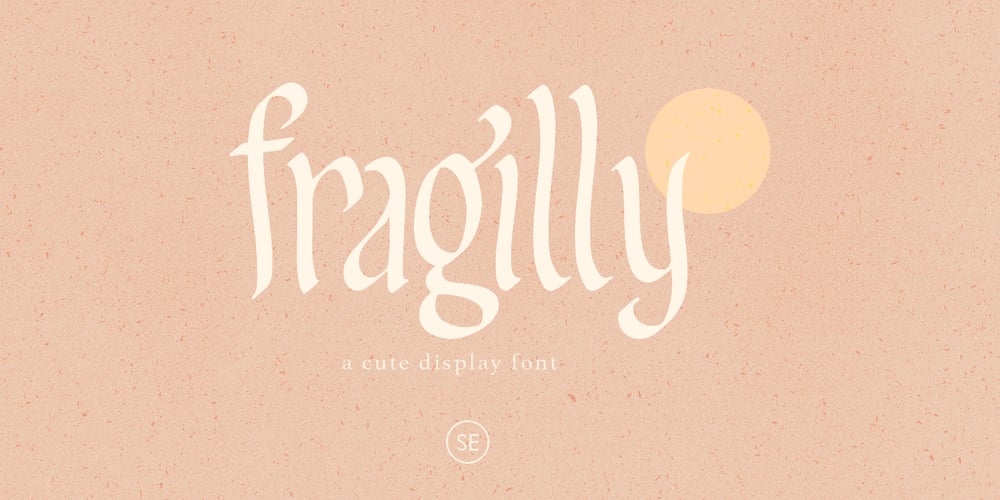
Fragilly
Fragilly font
Fragilly Font Family was designed by Sarid Ezra and published by Sarid Ezra. Fragilly contains 1 styles and family package options. Fragilly is a modern calligraphic font that will make your project more stunning. It comes with cute and quirky vibes. There’s also essential ligatures that will you often use! Also comes with multilingual support and PUA encoded!Sent me an email to saridezra@gmail.com for more information!